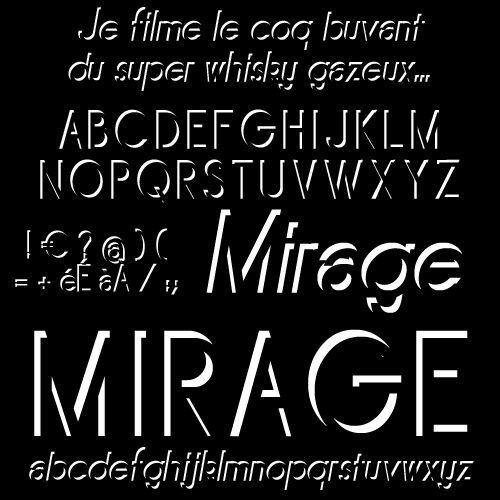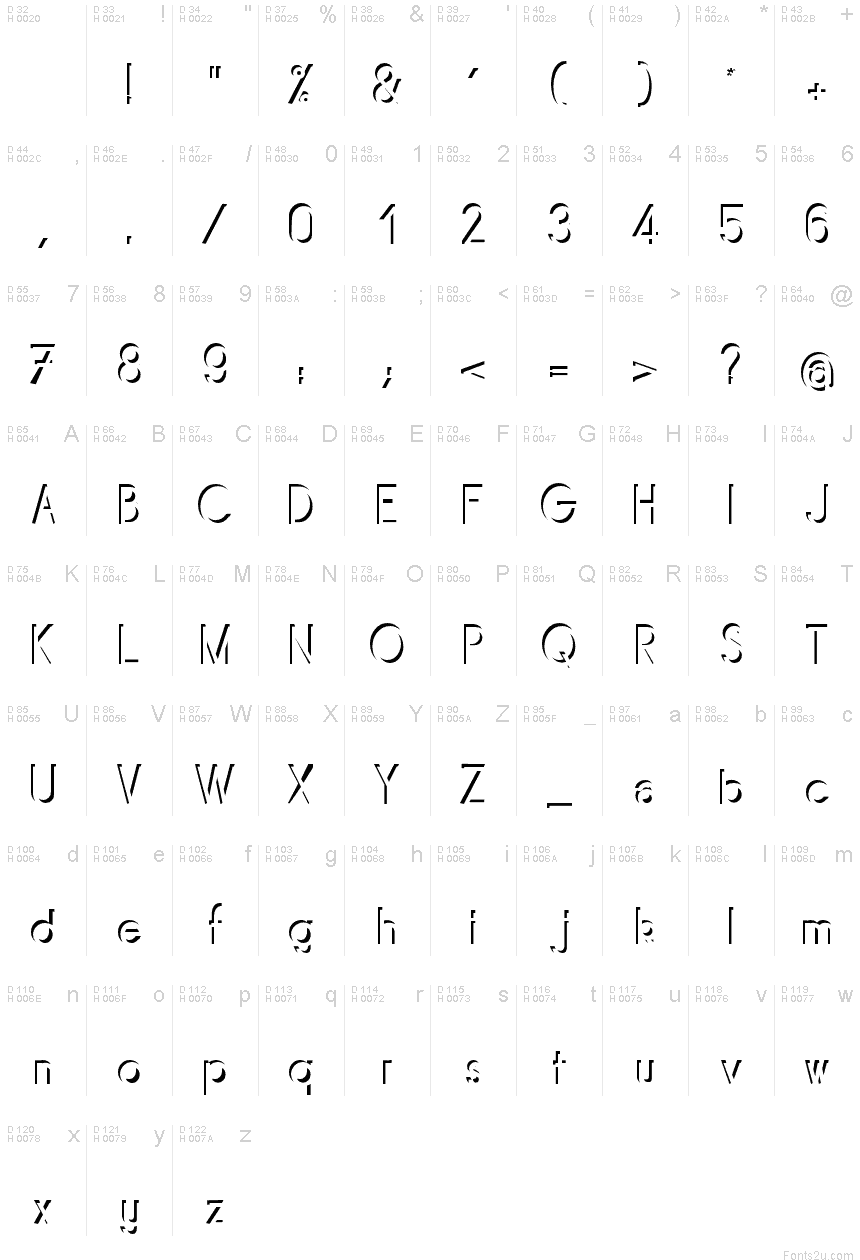
Mirage is a free distorted geometric display font built from thin strokes, stark curves, and broad cutaway gaps. Its letters look partially erased, with clean breaks recurring across the forms. The silhouette stays crisp and spare.
It can turn a title into an abstract graphic, fitting music posters and fashion branding. The broken construction also suits experimental magazine covers, where lettering can echo cropped photography or collage. Album artwork and event graphics share its fractured, contemporary edge.